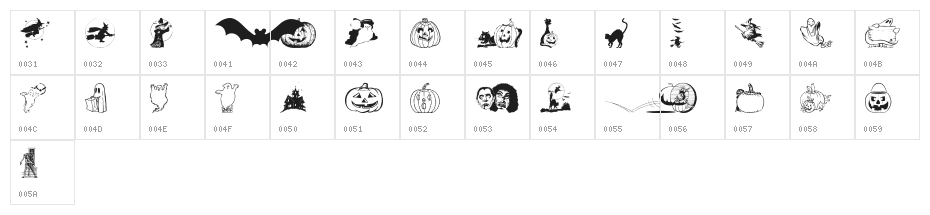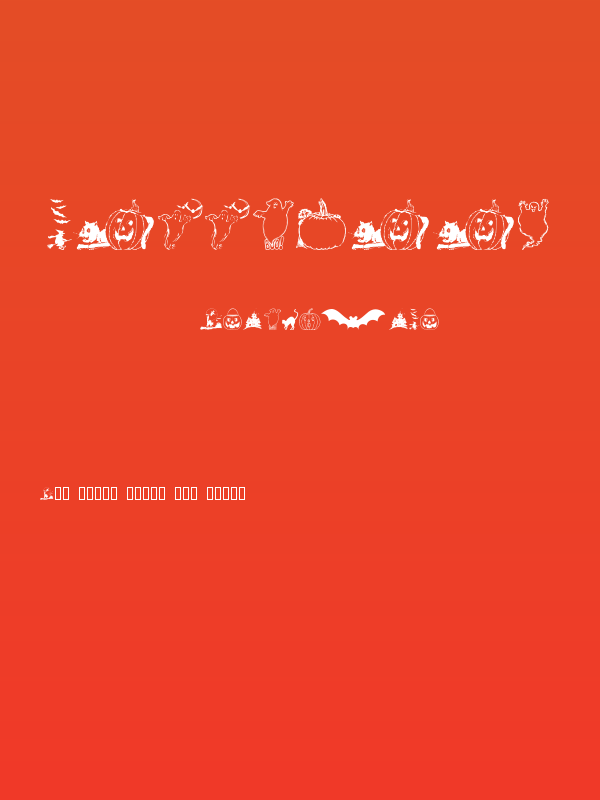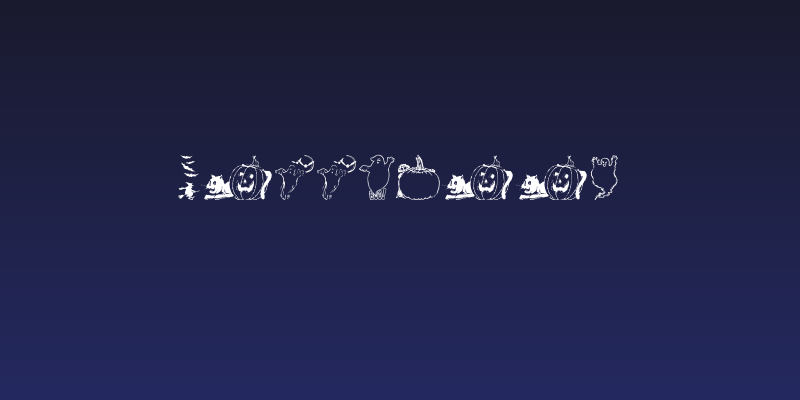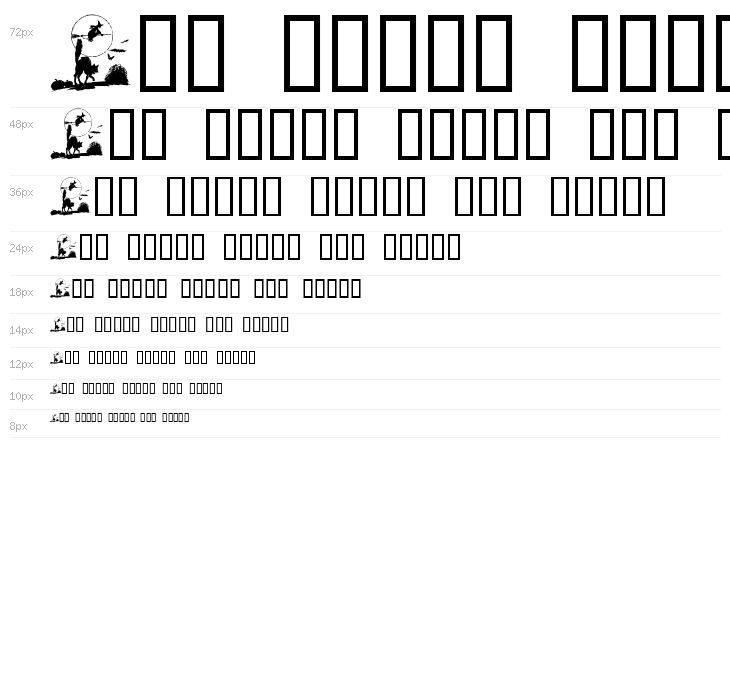
Helloween Font
Helloween Description
A decorative display font featuring Halloween-themed illustrations such as bats, pumpkins, witches, ghosts, and other spooky motifs in place of standard alphanumeric characters.
| Overall Style | Decorative, Thematic, Playful |
| Use Case | Decorative elements, Themed graphics, Not suitable for body text or headlines. |
| Proposed Projects | Party invitations, event flyers, holiday decorations, themed posters, scrapbooking, and crafts. |